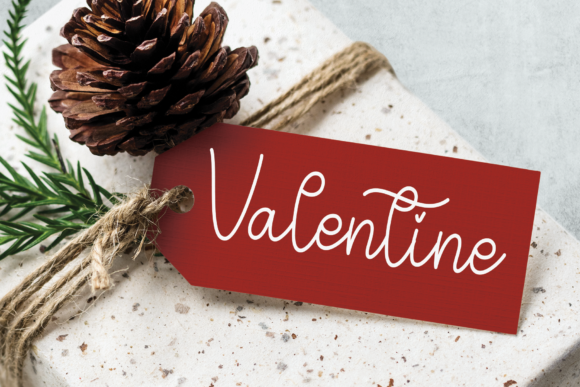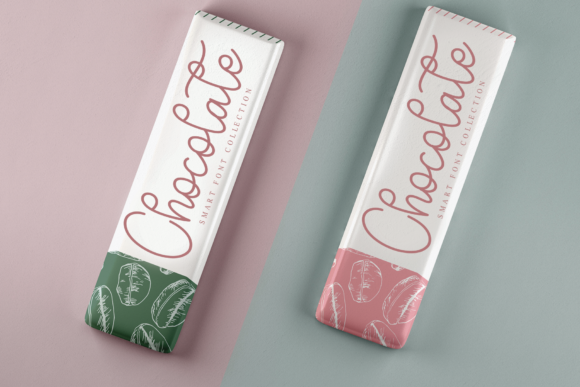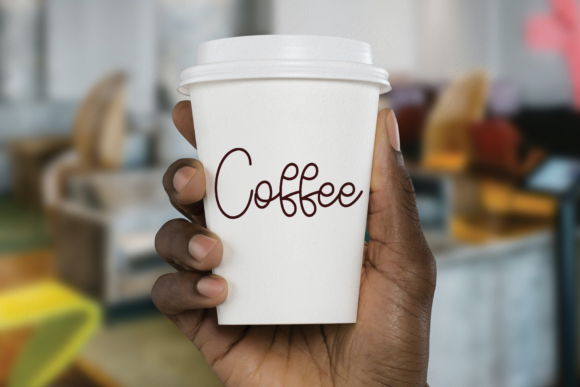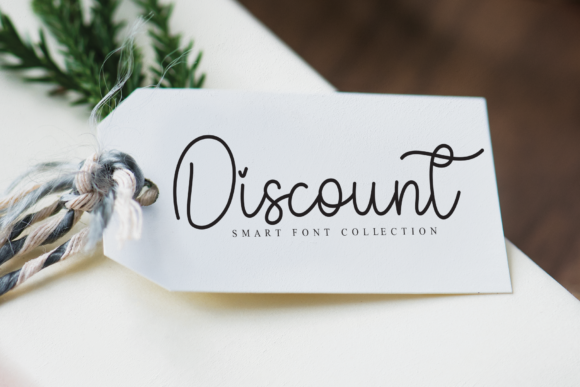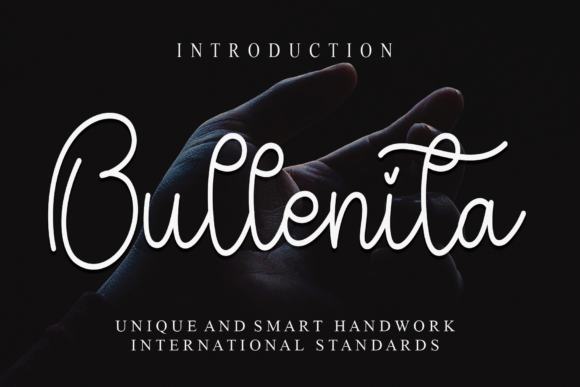
Bullenita Font: The Timeless Handwritten Font for Stunning Designs
Are you a designer or crafter looking for a font that can add a touch of elegance and sophistication to your designs? Look no further than Bullenita Font! This lovely and timeless handwritten font is perfect for creating eye-catching logos, branding, and quotes that will leave a lasting impression on your audience.
The Unique Charm of Bullenita Font
What sets Bullenita Font apart from other fonts is its unique and beautiful touch. Every letter has been carefully crafted to have its own distinct character, making it a true standout in the world of typography. Whether you’re looking to create a bold and statement-making design or a soft and delicate one, Bullenita Font has the versatility to bring your vision to life.
Bullenita Font is the perfect choice for designers and crafters who want to create stunning logos, branding, and quotes. Its elegant and cursive script makes it ideal for creating eye-catching headlines, titles, and taglines that will grab the attention of your audience. Whether you’re working on a personal project or a client’s, Bullenita Font is sure to impress.
Why Choose Bullenita Font?
So why choose Bullenita Font over other fonts? Here are just a few reasons why it’s a top choice among designers and crafters:
- Unique and Beautiful Touch: Every letter has a unique and beautiful touch that will make your design stand out.
- Timeless and Elegant: Bullenita Font has a timeless and elegant quality that will never go out of style.
- Versatile: Whether you’re creating a bold and statement-making design or a soft and delicate one, Bullenita Font has the versatility to bring your vision to life.
- Perfect for Branding: Bullenita Font is perfect for creating eye-catching logos, branding, and quotes that will leave a lasting impression on your audience.
Tips for Using Bullenita Font
Here are a few tips for using Bullenita Font to get the most out of this stunning font:
- Use it as a Headline Font: Bullenita Font is perfect for creating eye-catching headlines and titles that will grab the attention of your audience.
- Pair it with a Sans-Serif Font: Pairing Bullenita Font with a sans-serif font can create a beautiful contrast that will make your design stand out.
- Experiment with Colors and Textures: Don’t be afraid to experiment with different colors and textures to add depth and interest to your design.
In conclusion, Bullenita Font is a timeless and elegant handwritten font that is perfect for designers and crafters who want to create stunning logos, branding, and quotes. Its unique and beautiful touch, versatility, and elegance make it a top choice among designers and crafters. Whether you’re working on a personal project or a client’s, Bullenita Font is sure to impress.